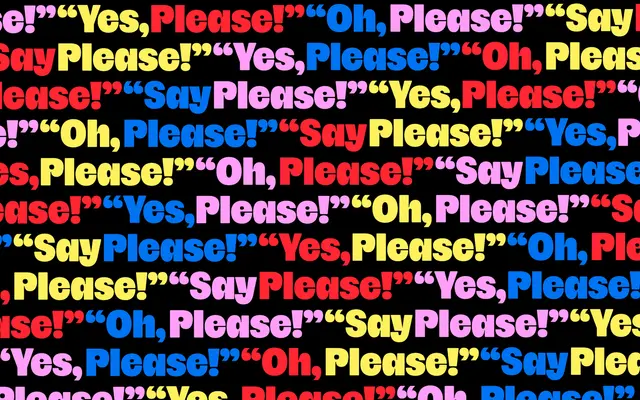
A three-subfamily type system from PS Type Lab, tuned across text, display and poster scales with distinct glyph sets at each level.
Split into Please, Please Display and Please Poster, the family is designed so each optical register carries its own default character set rather than hiding variants in buried stylistic sets. Please Poster introduces unconventional forms at larger sizes: a single-counter 'a', a single-shoulder 'm' and round counters in uppercase letters that conventionally carry none. Available in both static and variable font formats, the system supports a wide Latin character set including oldstyle figures, open-counter alternates and discretionary ligatures.
Please is a humanist sans-serif with expressive glyph alternates and optical-size subfamilies; its open counters, oldstyle figures and poster-specific letterforms place it firmly in the humanist tradition while pushing toward display territory at heavier weights.